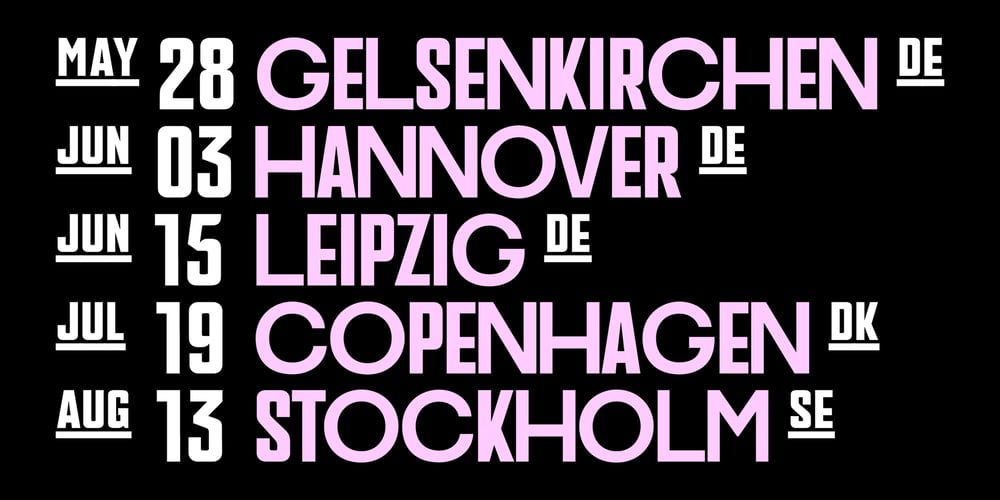
PF Venue Font Family was designed by Panos Vassiliou and published by Parachute. PF Venue contains 6 styles and family package options. PF Venue is inspired by a range of 20th-century sans-serif type styles, particularly the sleek and understated geometric forms of the Art Deco movement, characterized by low- and high-waisted monostroke designs. The typeface features a large x-height and consists of two families with alternate letterforms, creating a distinctive texture when set in uppercase. The bold interplay of contrasting structures—from narrow standard forms to wide alternates—imbues Venue with a striking, eye-catching personality. Perfect for posters, ads, book covers, and avant-garde fashion editorials, it demands attention wherever it appears.Drawing further influence from condensed grotesques that defined music album covers from the 1950s onward, Venue echoes the rebellious spirit of underground music. Rooted in nonconformity, self-expression, and a defiance of convention, this collection is a tribute to the raw energy of rock culture.The full PF Venue collection comprises two distinct families—Venue and Venue Condensed—both supporting Latin, Greek, and Cyrillic scripts. Each family offers five alternate letterform sets, providing endless possibilities for creative expression.